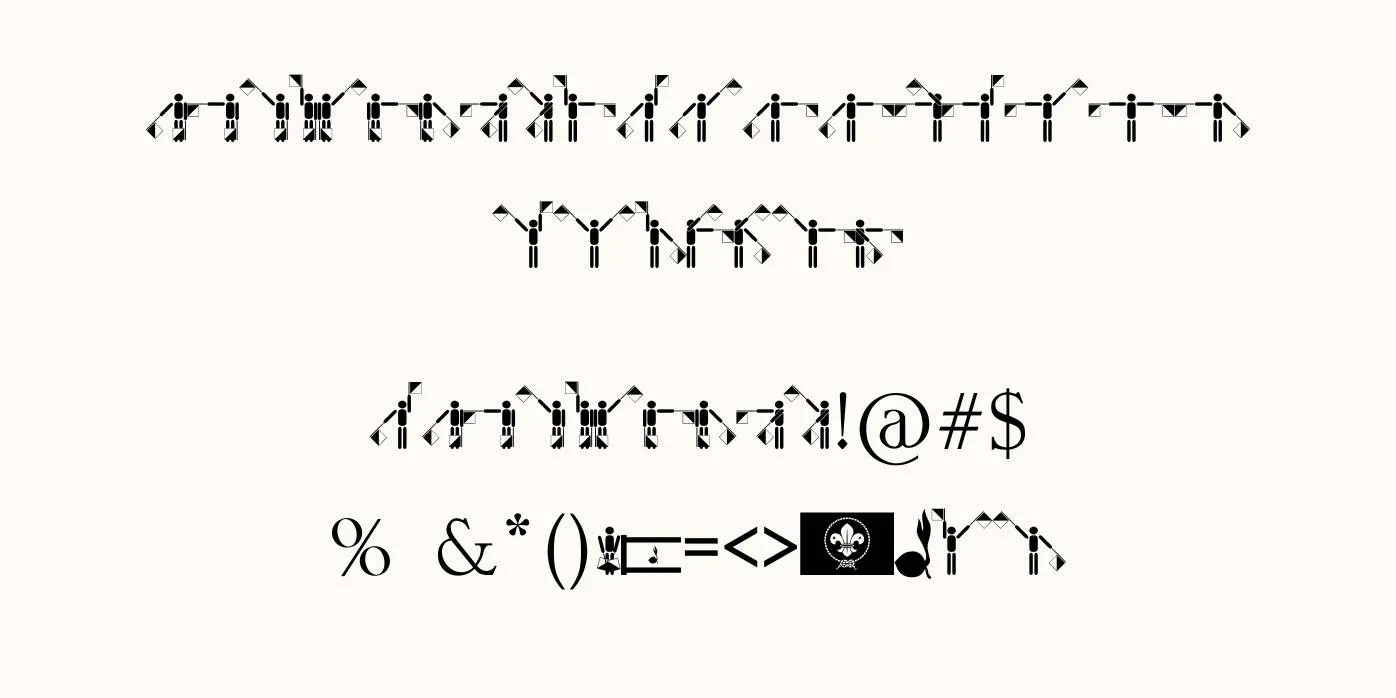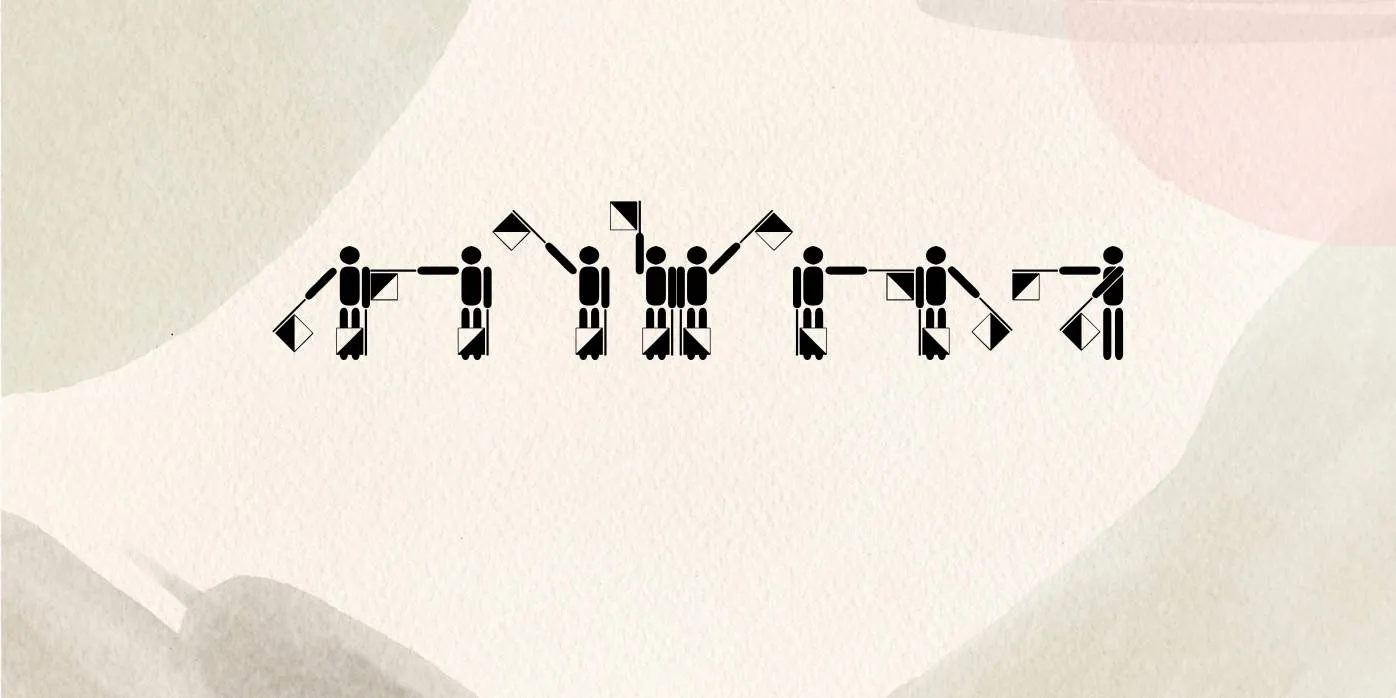
Semaphore Pramuka Font
Imran Nasution is the designer for this typeface. Semaphore Pramuka Font is a dingbat type of font that has amazing non-lettered type of characters. This typeface is also free for all types of projects and designs. You do not need to pay any type of charge for a license.
There are so many possibilities for using this typeface depending on your needs. This typeface has usage in branding and logos. The typeface that is best for pairing with this typeface is the cute halloween drawings font. This typeface is very useful in many types of projects and designs.